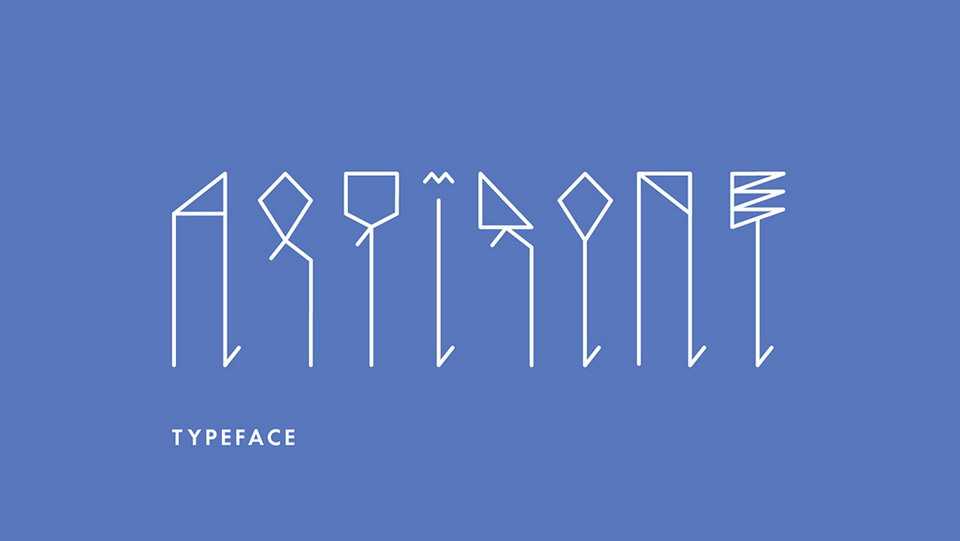
Download Aquilone font, an experimental free typeface with a cartoonish yet very geometrical character, inspired by kites in a variety of shapes and sizes held up to the wind on a thin string.
Designer: Jan Henkel